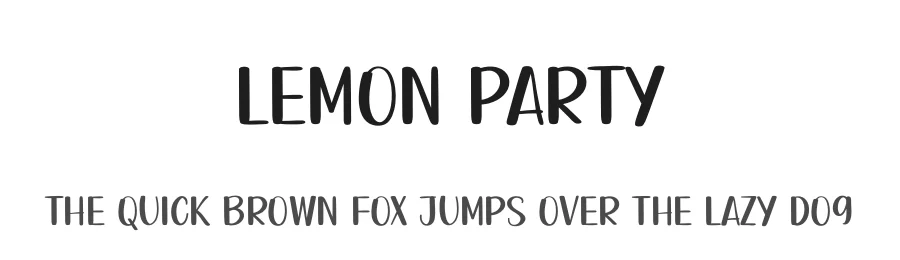
About Simple Planner Font
Simple Planner Font is a script font that shines as a display or heading face. Pair it with a clean sans-serif or serif font for body text β the contrast creates a clear hierarchy while the two styles stay balanced and easy to read.